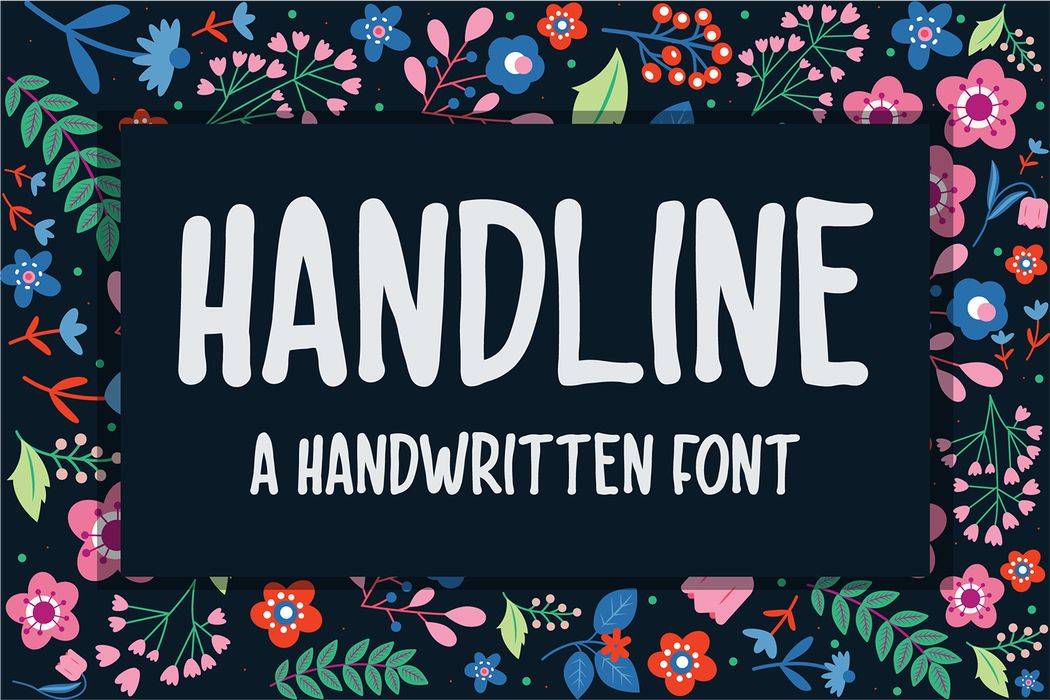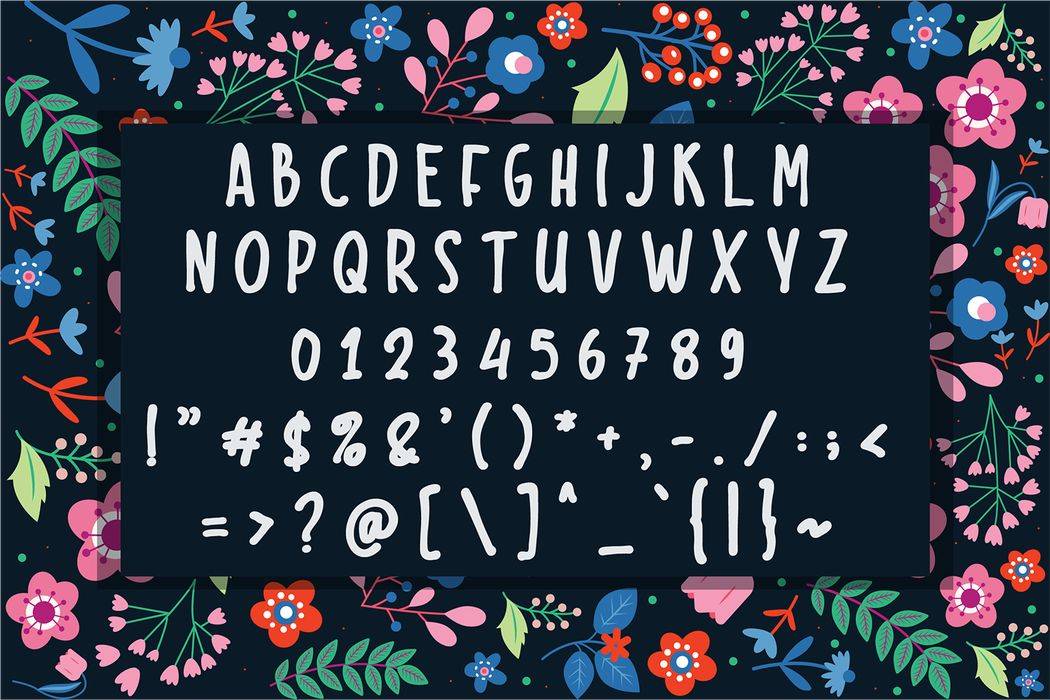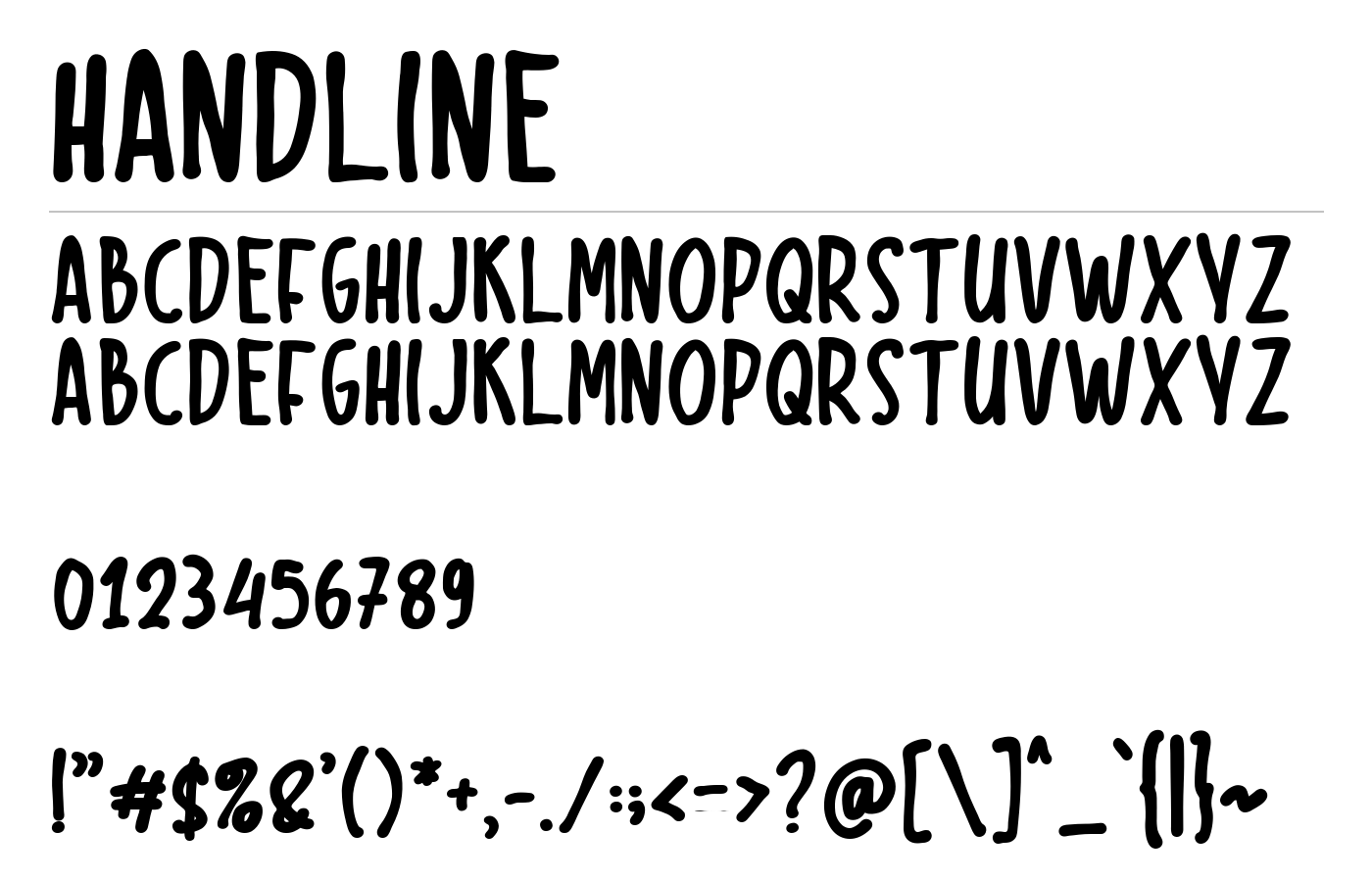
Handline Regular is a playful handwritten sans serif font with a casual, friendly vibe. Its slightly uneven and rounded letterforms create an approachable, informal feel that works well in creative projects, children’s content, and relaxed branding. This font shines in headlines, invitations, and packaging that seek a personal, warm touch.
Handline Regular Font
About Handline Regular Font